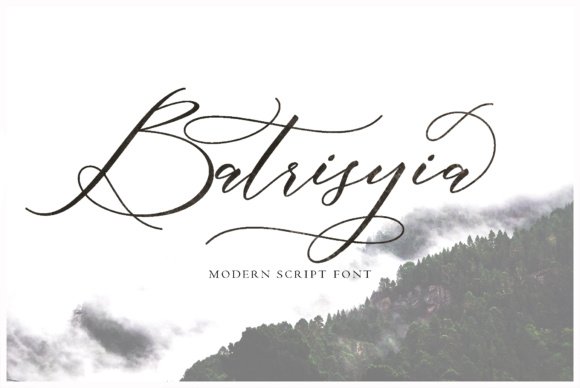
Discover the Magic of Handwritten Charm with Batrisyia Script Font
Have you ever sat down with a cup of coffee, a blank sheet of paper, and a pen, letting the creativity flow as you scribble out a beautiful quote or a heartfelt message? For designers, those moments are a treasure trove of inspiration, and the Batrisyia Script Font is the perfect tool to capture that handwritten charm in digital form.
This new and modern script font boasts a handmade calligraphy style with decorative characters and a dancing baseline, making it a stunning addition to any design project. Whether you’re creating greeting cards, branding materials, business cards, or posters, the Batrisyia Script Font is sure to add a touch of elegance and sophistication. With its versatility and beauty, this font is a valuable asset for designers looking to elevate their designs and make a lasting impression.
Batrisyia Script Font Key Features
- Font Family: Batrisyia Script Font
- Character Count: 750+ glyphs, including Latin, Cyrillic, and Greek scripts
- Unique Characteristics: Elegant, cursive script with a modern touch, suitable for invitations, wedding stationery, and other creative projects
Batrisyia Script Font Review
Overall, I think Batrisyia Script Font is a beautiful, elegant font that can add a touch of sophistication to any design project. ✨ Its unique, handwritten style makes it perfect for creating a sense of warmth and personality.
Here are some things that work well with this font:
- ✨ The font’s flowing lines and subtle flourishes add a touch of whimsy and charm.
- ✨ It’s highly legible, making it suitable for body text as well as headlines.
- ✨ The font comes in a range of weights and styles, giving designers plenty of options for customizing their design.
- ⚠️ The font may not be suitable for formal or professional designs, as its informal style may come across as too casual.
- ⚠️ The font’s high contrast between thick and thin lines may make it difficult to read at small font sizes.
Overall, I think Batrisyia Script Font is a great choice for designers who want to add a touch of personality to their projects. With its unique style and high legibility, it’s a versatile font that’s perfect for a wide range of designs.
The Batrisyia Script Font is ideal for:
- Event branding and marketing materials.
- Personalized gifts and decorations.
For best results, use the Batrisyia Script Font in combination with a clean and simple design to create a elegant and sophisticated look.